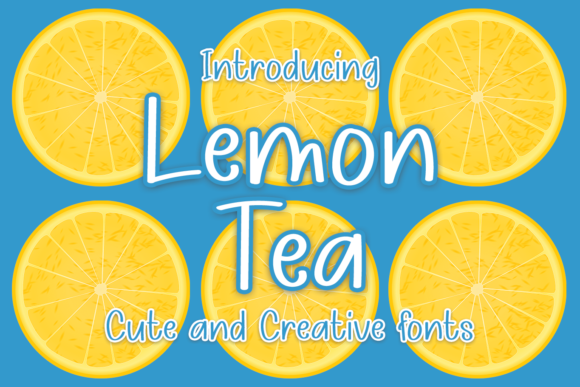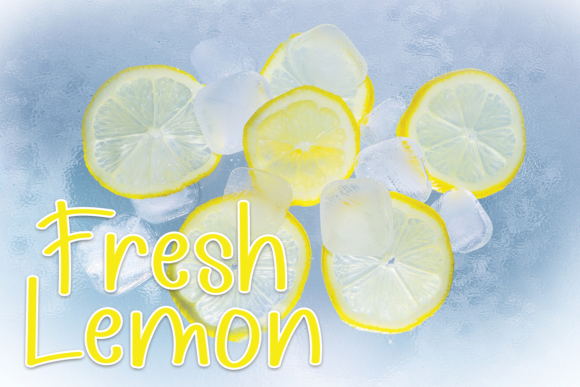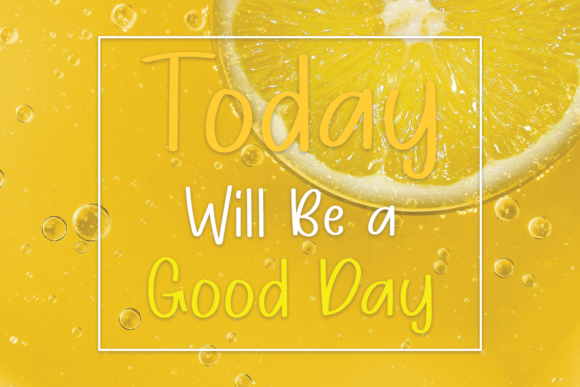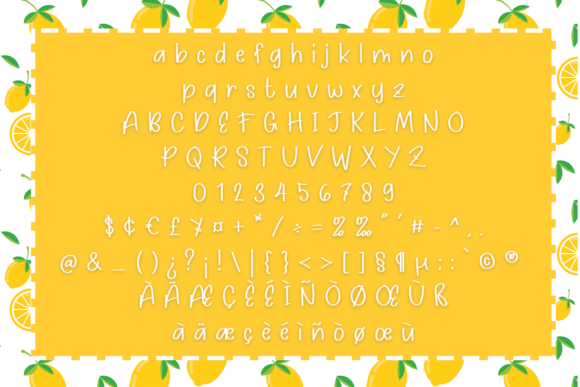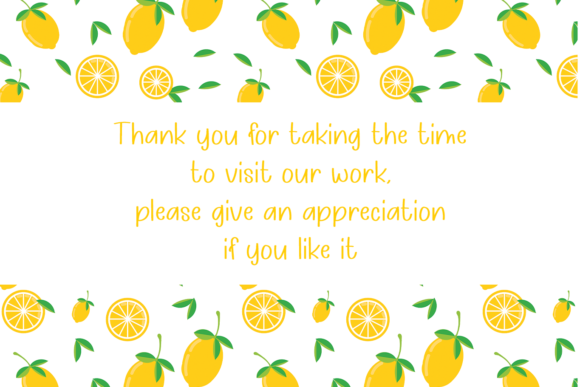
Lemon Tea Font
About Lemon Tea Font
Lemon Tea is a simple and quirky handwritten font. Add this adaptable and informal handwritten font to each of your creative ideas and notice how they come to life.